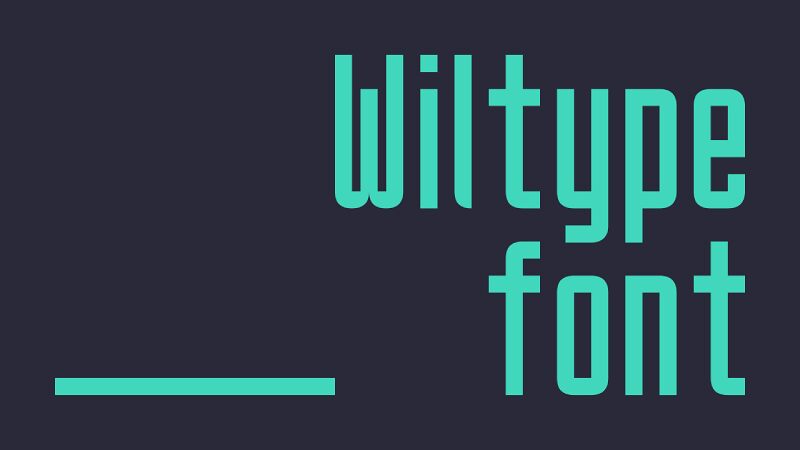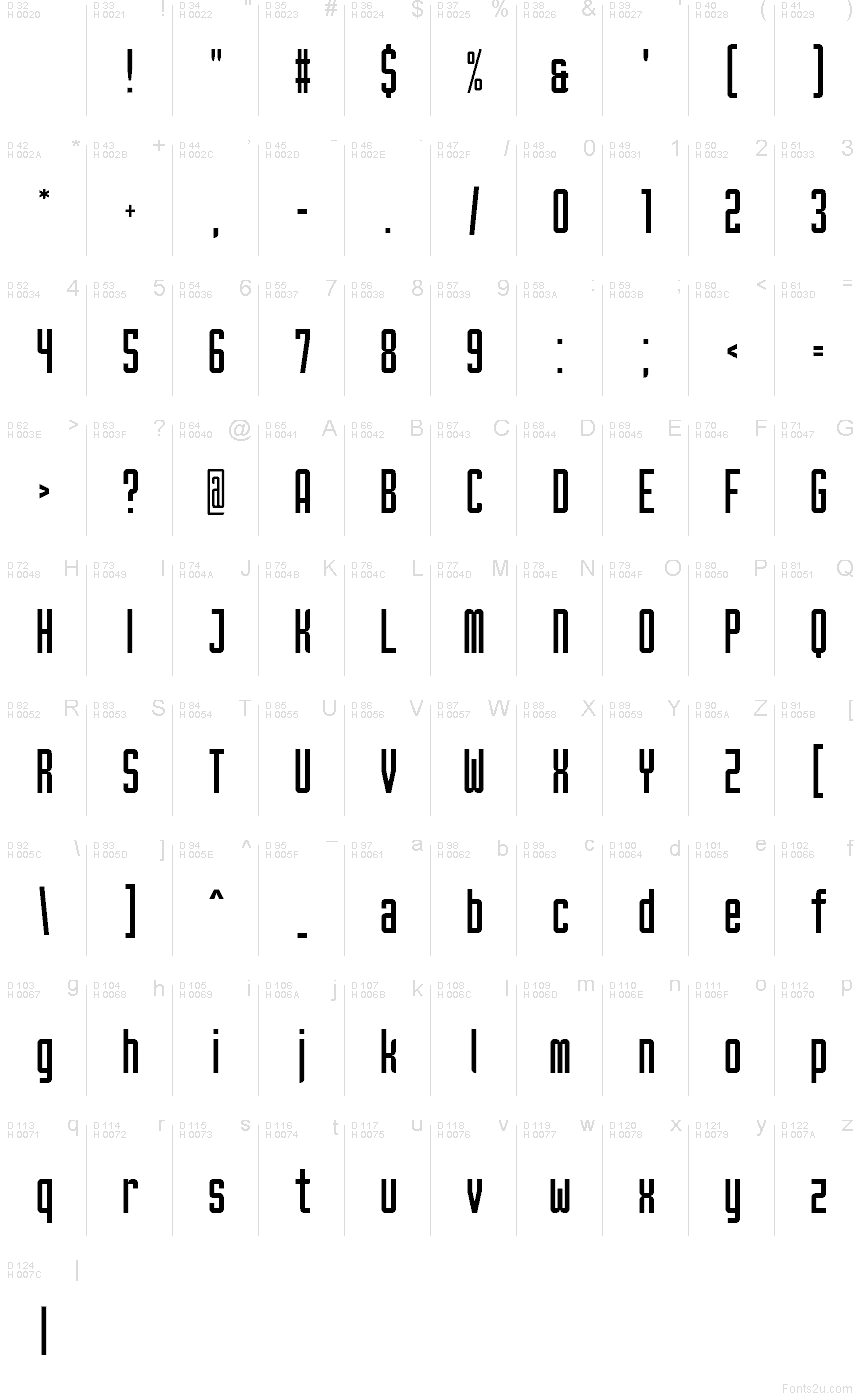
Wiltype font by GGBotNet is a free techno sans serif typeface with a tall, ultra-condensed silhouette and softly squared corners that feel both digital and human. Its straight, tube-like strokes lock together in a tight grid, giving logos and headlines a clean, machine-made rhythm that still reads smoothly at a glance. There’s a subtle retro-computer vibe here, like pixel screens smoothed into glossy neon bars.
Using Wiltype, you can push bold concepts for sci-fi posters, gaming interfaces, electronic music covers, tech branding, esports graphics, and minimalist event flyers. This free font shines in large sizes where its vertical energy can really stretch and breathe. Pair Wiltype with a simple geometric sans for body copy and keep the supporting text smaller and lighter to let these tall, futuristic letters carry the visual weight.